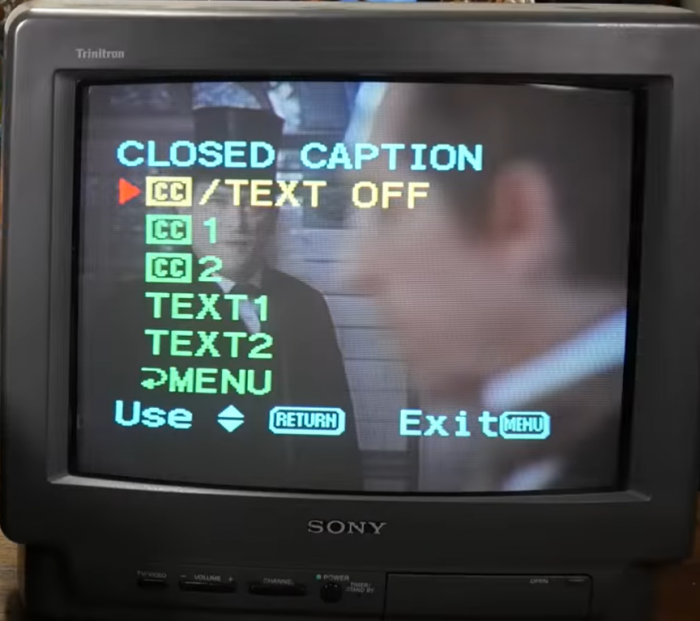
• This is my recreation of the pixelated large font used on the Sony Digital Handycam DCR-TRV17, made through carefully copying each character pixel by pixel from pictures of the LCD screen.
As Handycams mainly use all capital letters (minus "InfoLITHIUM"), those are the only letters included. While the letters, numbers, and a couple punctuation were copied correctly, others are either based on existing characters or are from a screenshot of the CCD-TR728E demo on YouTube (for mostly accented characters. The Cyrillic characters won't be included unless a screenshot of the second page of letters is shown).
This picture demonstrates how faithful this font looks to the original Handycam font, placed over a picture taken with the camcorder. The text has an outline and vibrant colors that imitate the camcorder's title text appearance.
@Xane123 - This is a wonderful recreation; another "lost" digital typeface has been rescued from the void!  :^)
@Xane123 - You might even be able to reacreat the "outline" version by using very thin lines along the edges, using this solid version as a template.  Cheers.
@Goatmeal Ah, I like knowing that someone else appreciates my attempts to turn the Handycam font into something usable on computers. I feel nostalgic about and like the way the text looks on the Handycam, so I felt FontStruct could replicate it perfectly.
Once I'm done adding all characters I plan to add to this font, I might create other variants, and one of those will be an "outline" version. Another could be a "smooth" version, where the round corner pieces are used.
i think this font might have lowercase
@Xane123 your font were used in fnaf 2 movie trailer